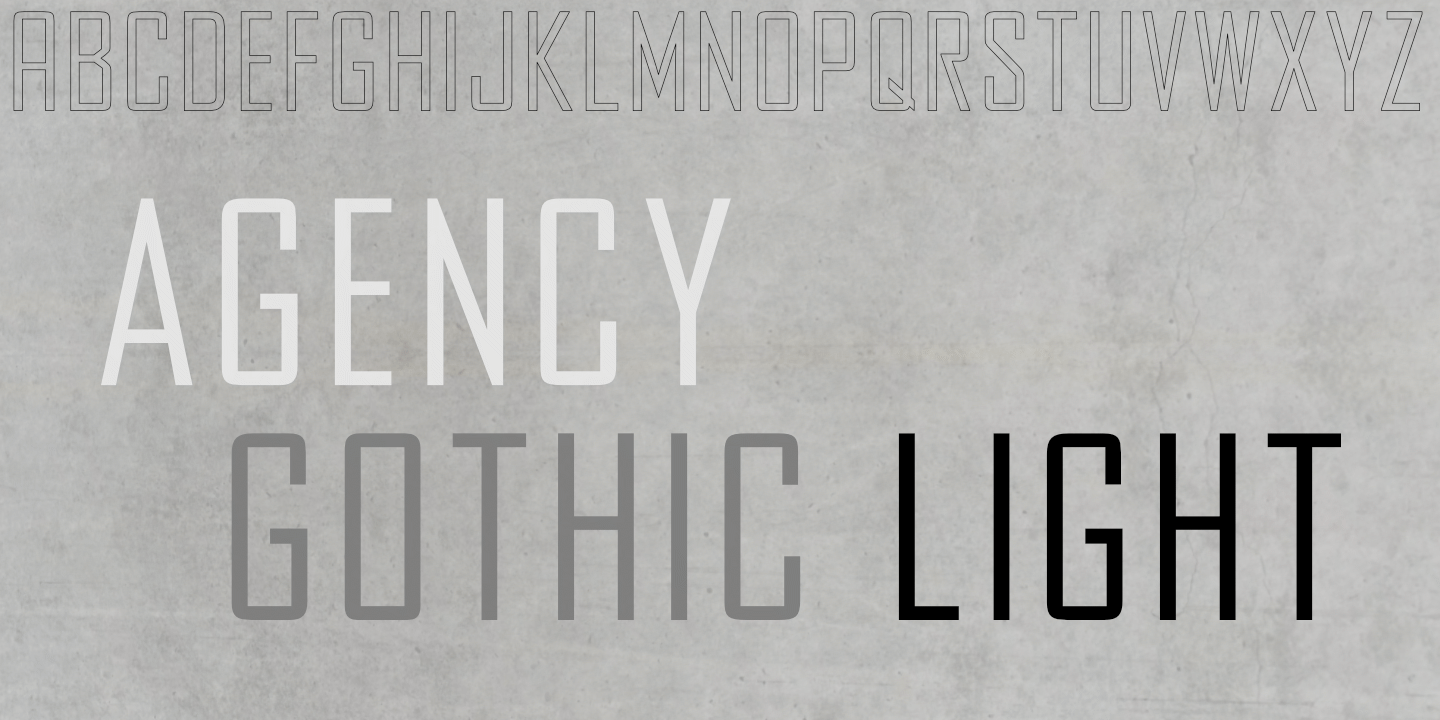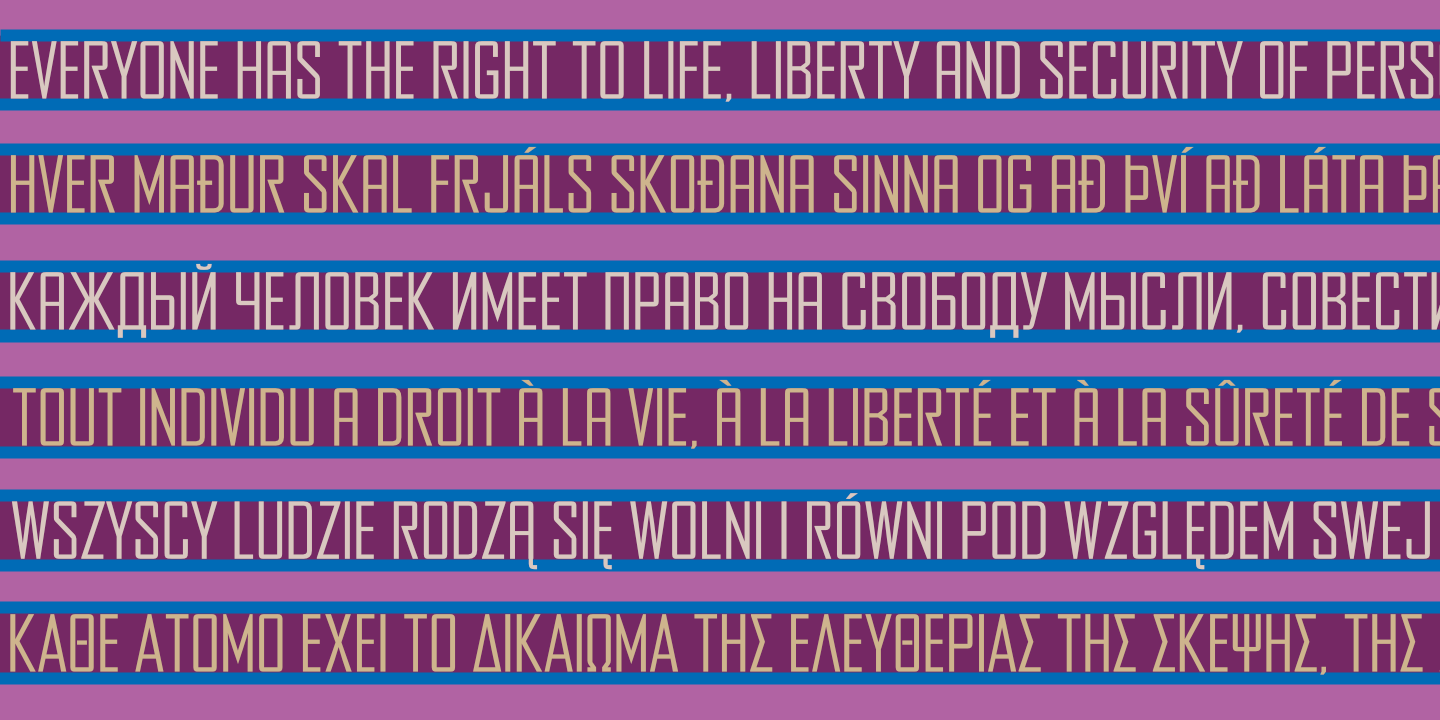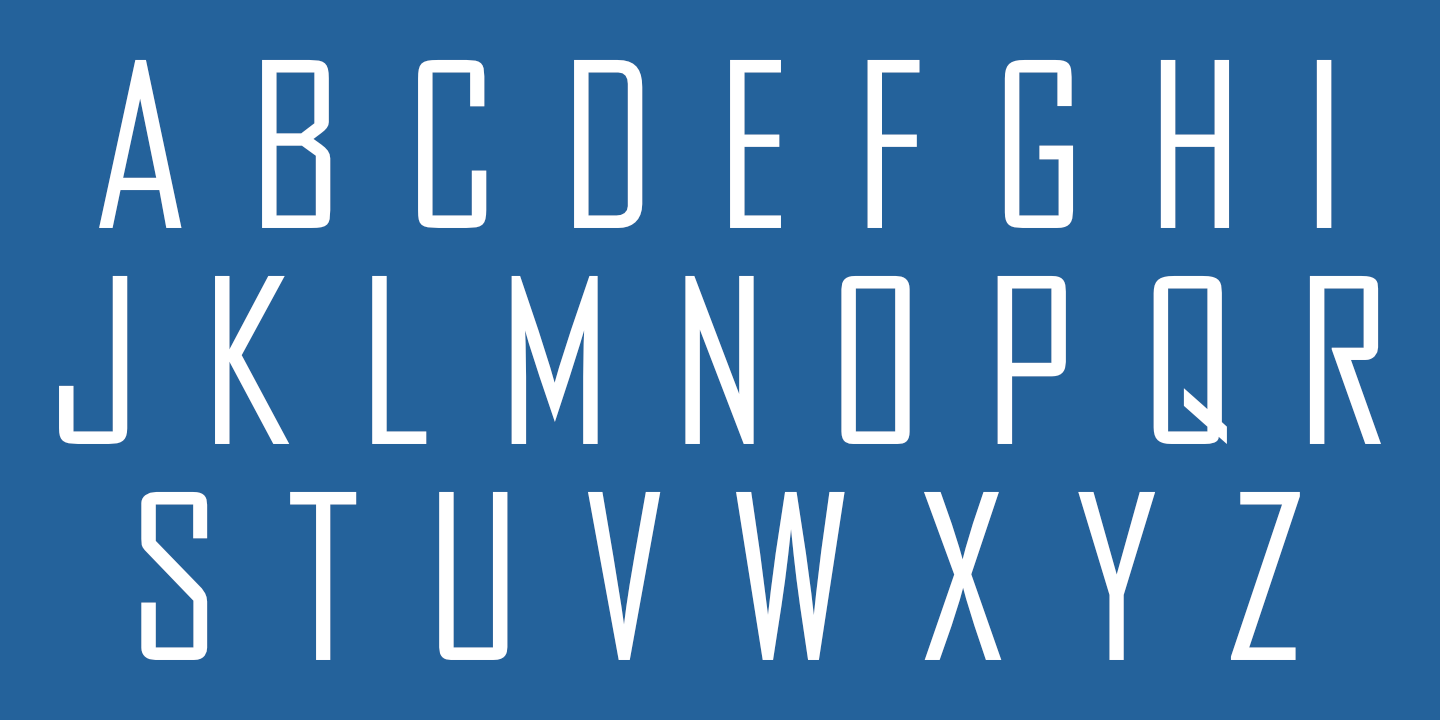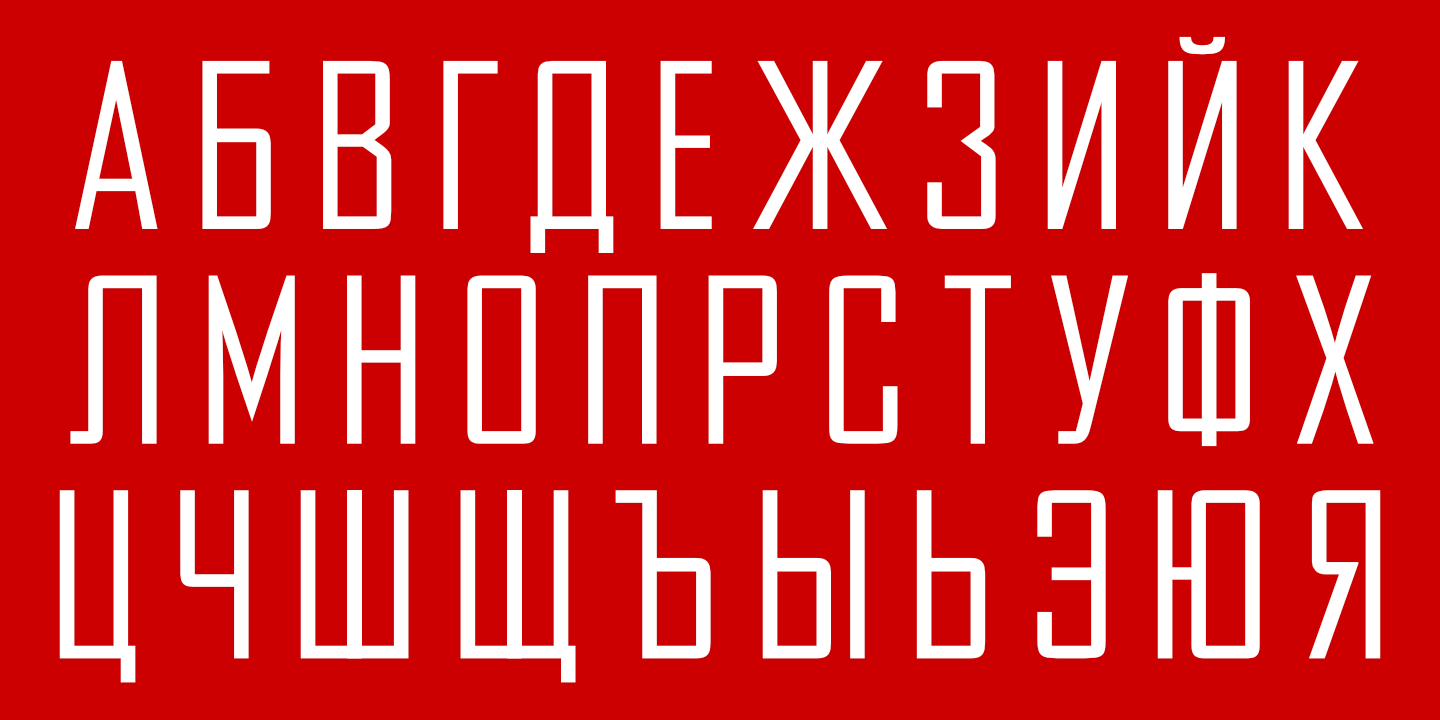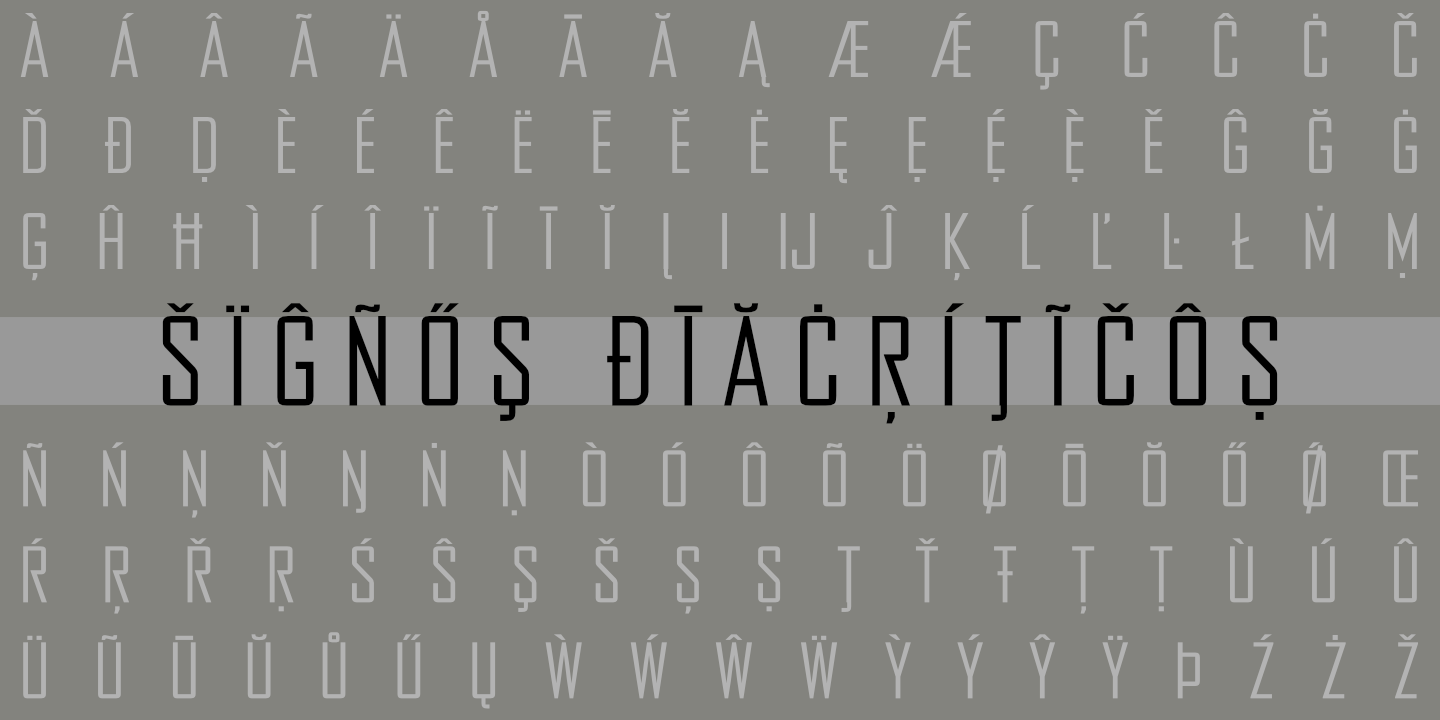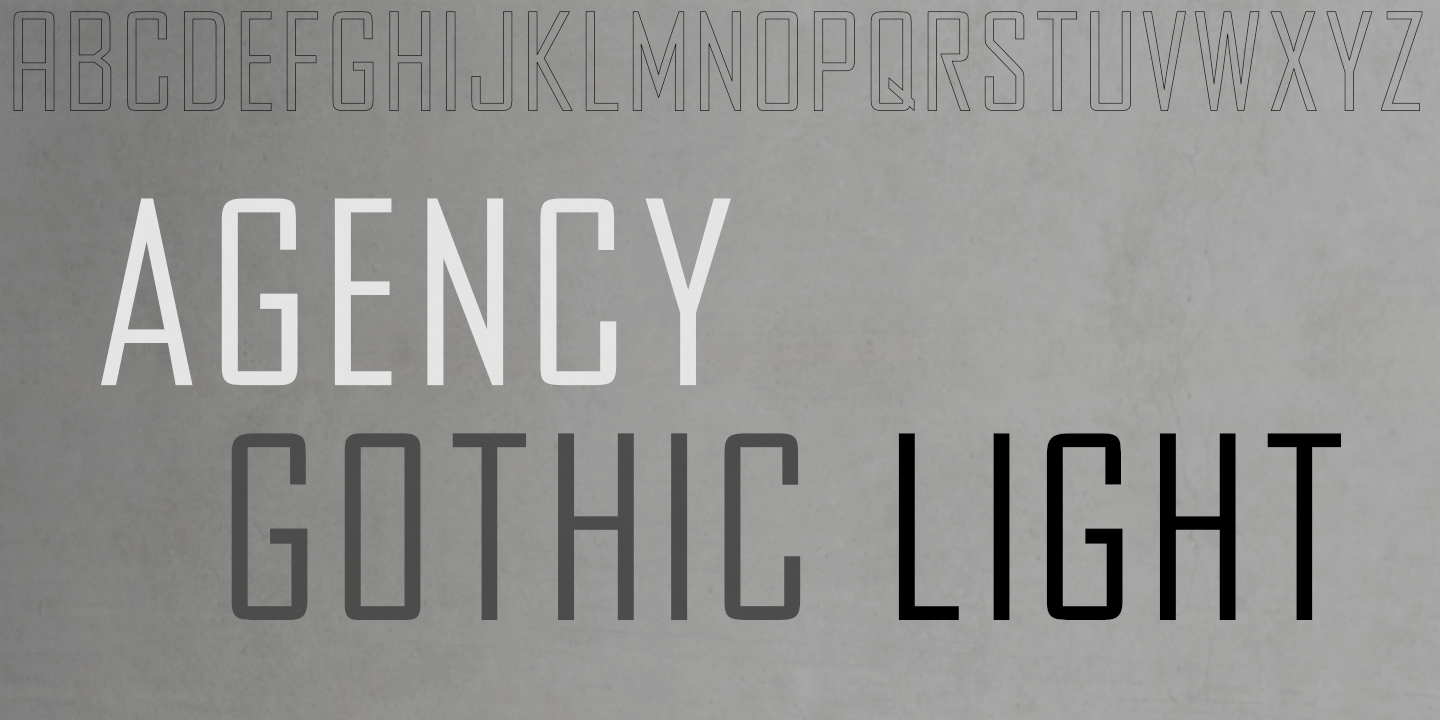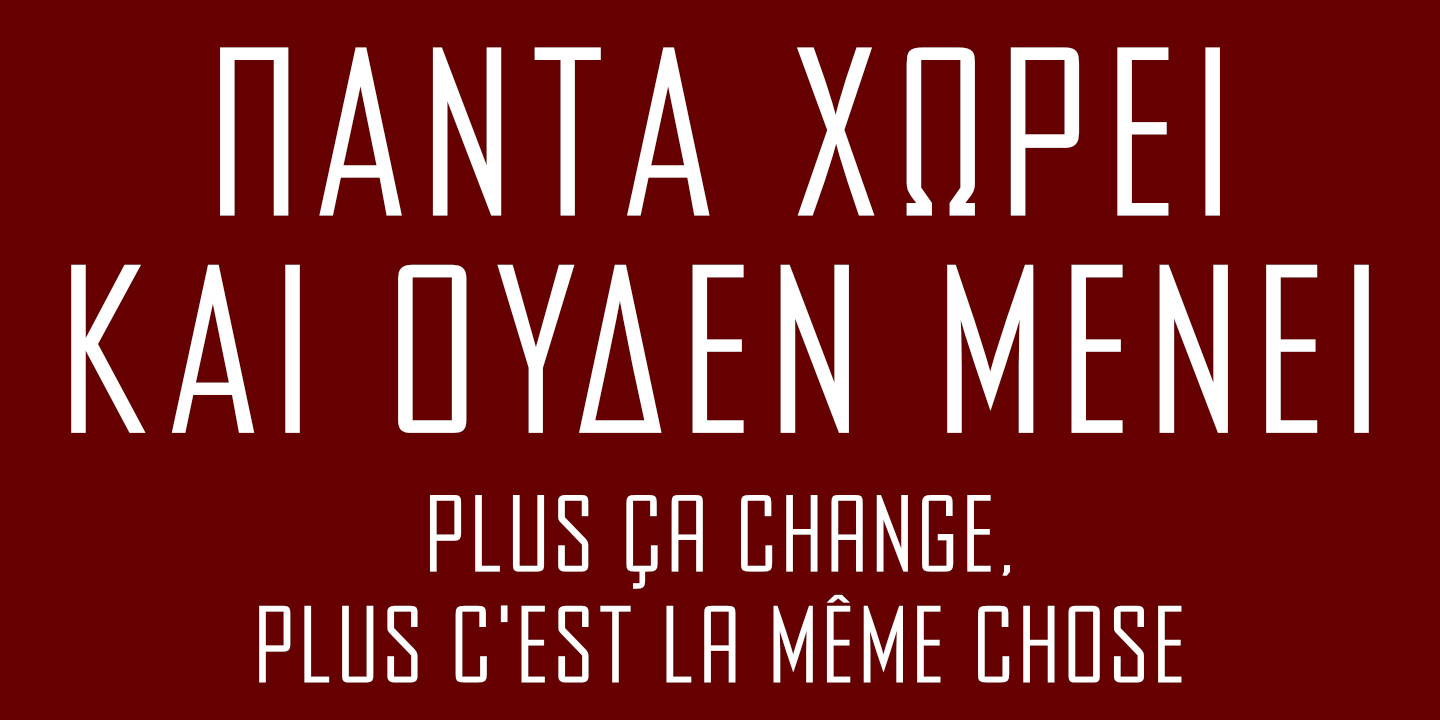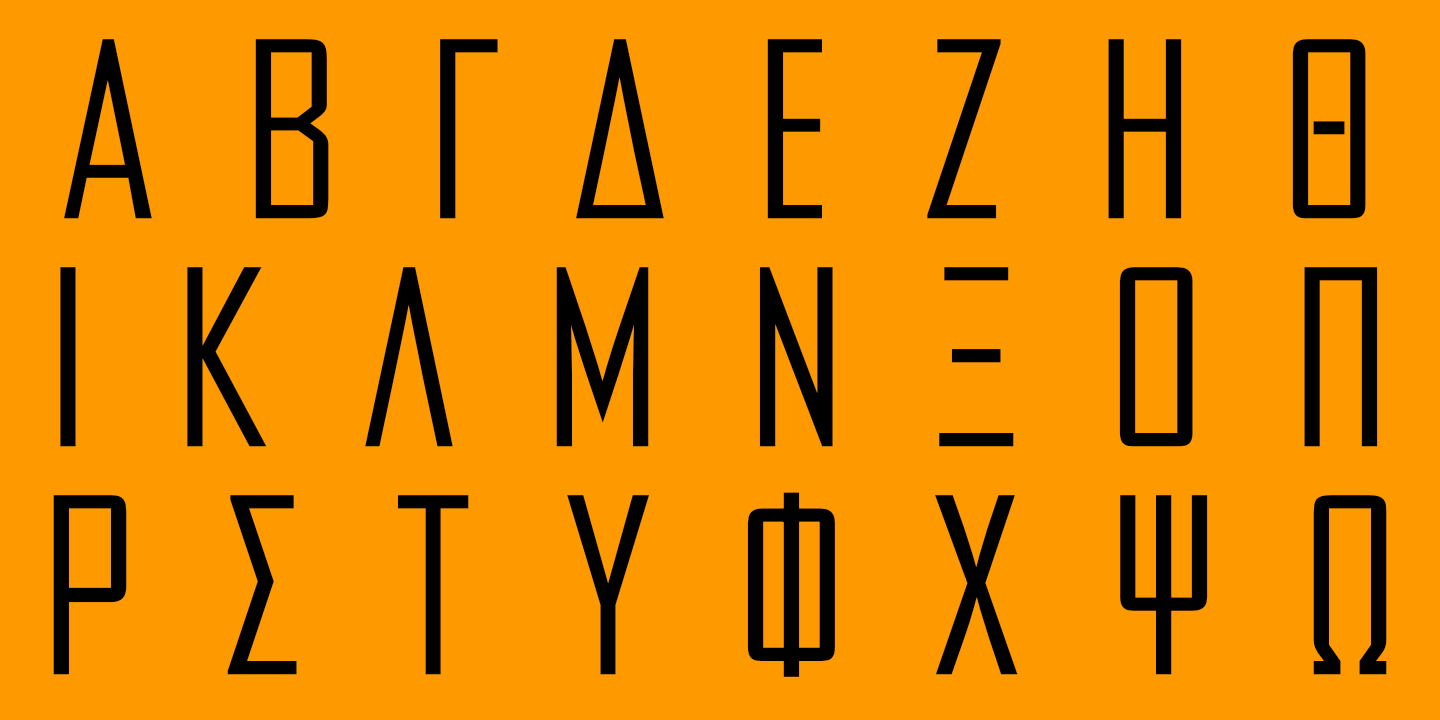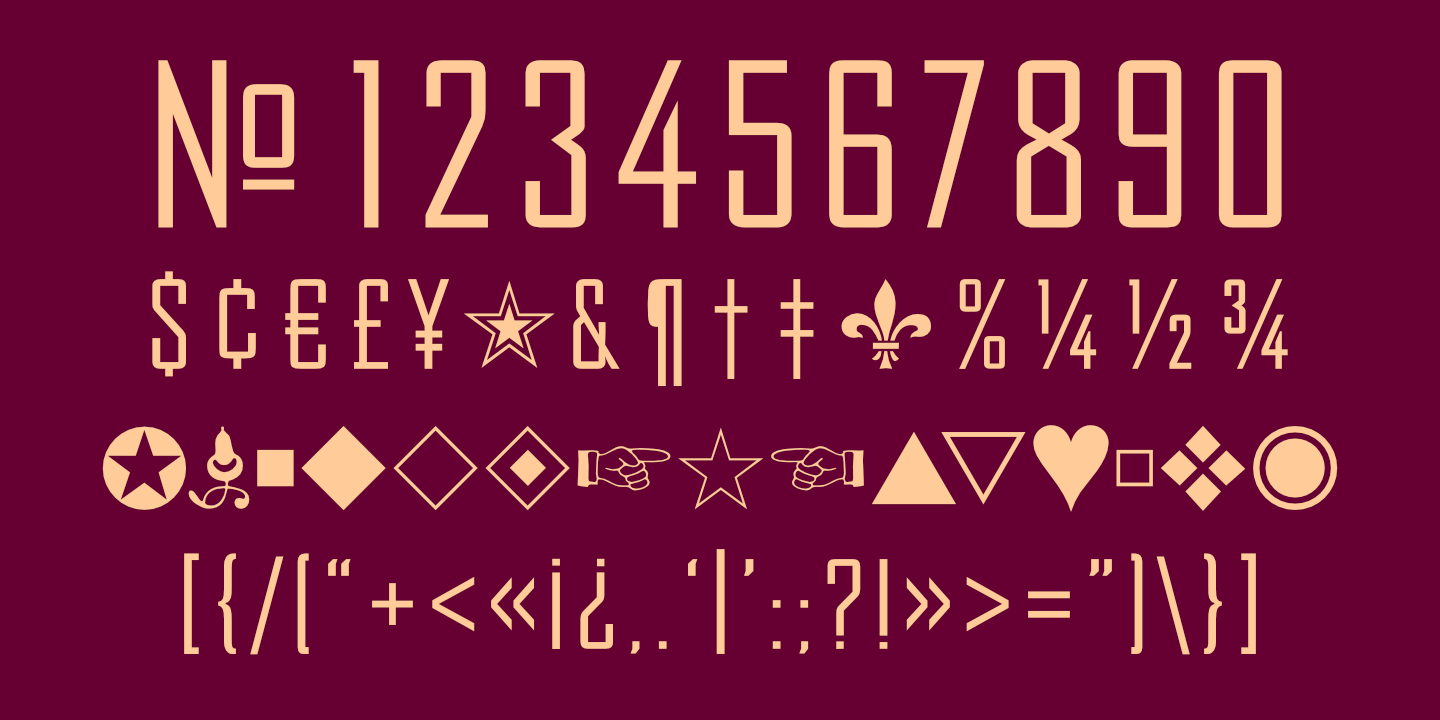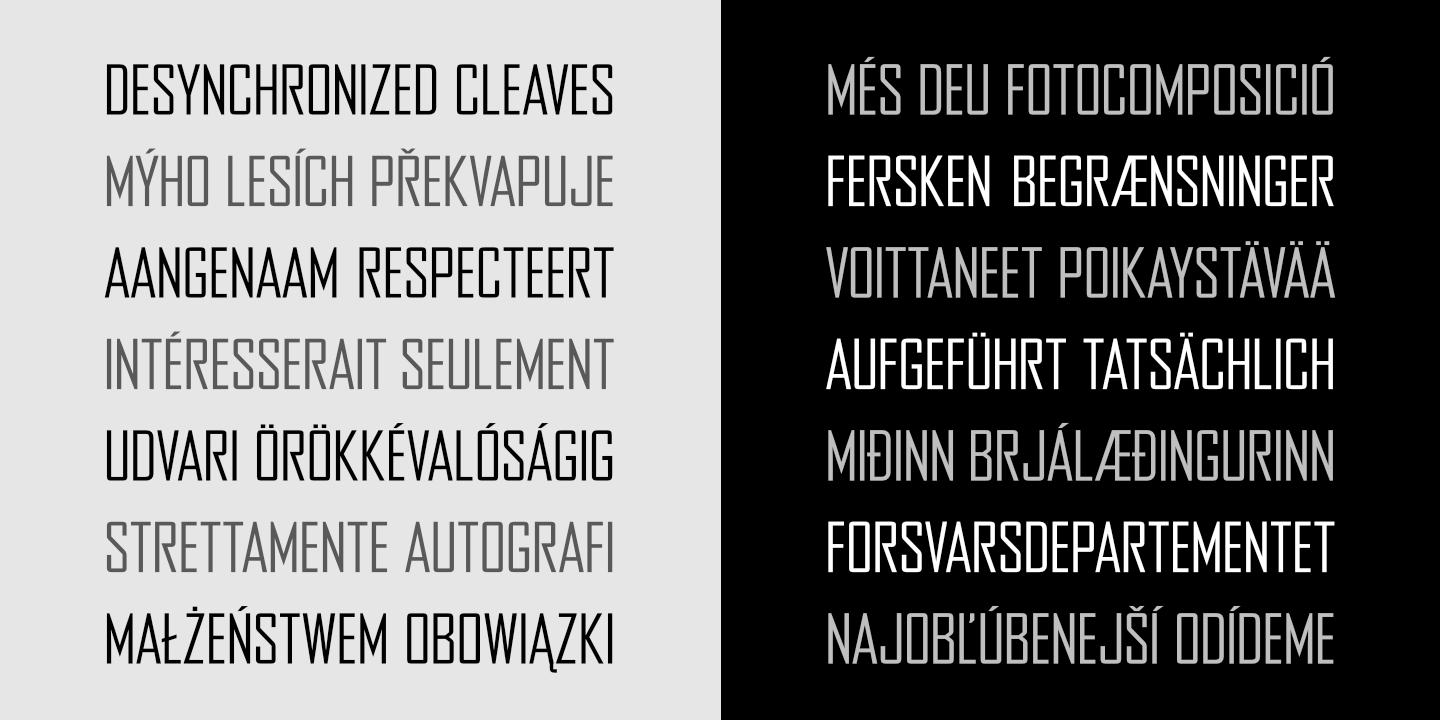
blank Latin Alphabet
Agency Gothic CT Light: Basic Latin alphabet. See Glyphs for details. blank
blank Russian Alphabet
Agency Gothic CT Light supports most languages that use the Cyrillic alphabet. See Glyphs for details. blank
blank Greek Alphabet
Agency Gothic CT Light supports modern (monotonic) Greek. See Glyphs for details. blank
Numerals, Punctuation, etc
Agency Gothic CT Light: Numerals, basic punctuation, currency symbols, and a sampling of ornaments.
UDHR
Agency Gothic CT Light supports most European languages.
Stacked Text
Notice that light text on a dark background appears slightly heavier than dark text on a light background. blank
Diacritics